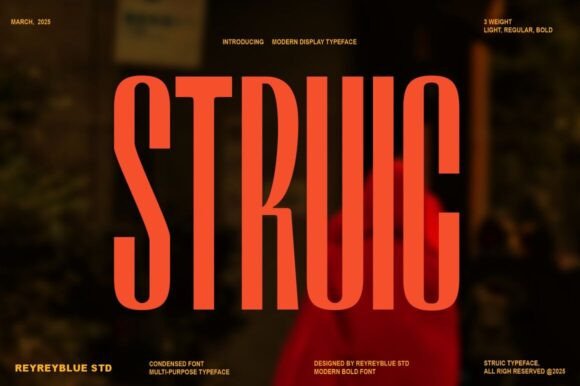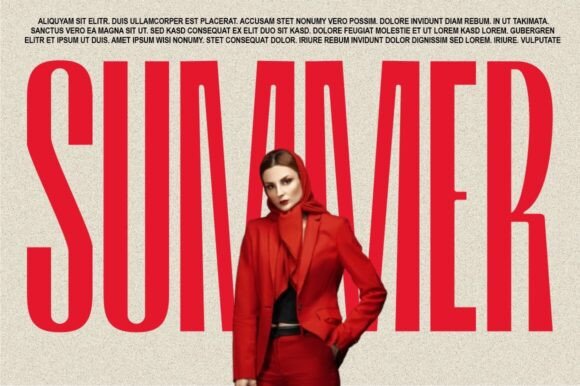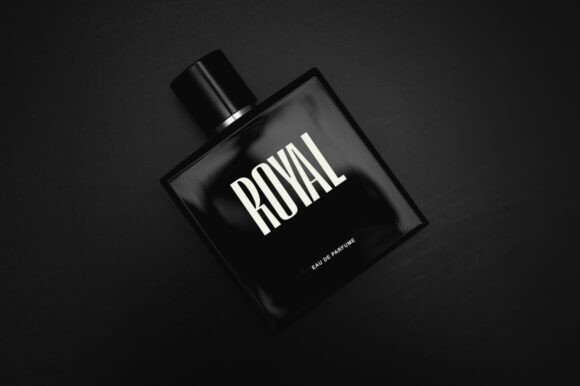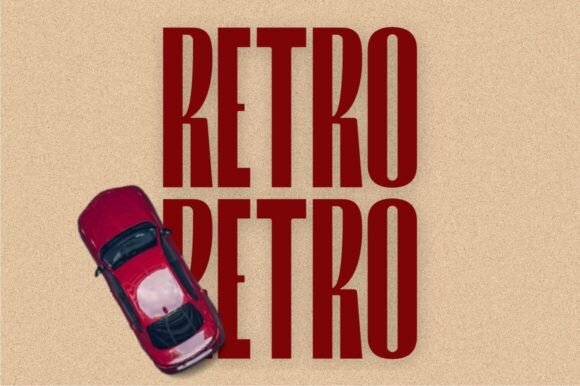
STRUIC Font: Bold Condensed Typeface for Modern Branding & Headlines
About the Struic Font
Step up your design game with Struic Font, a font that exudes confidence and style. 🔥 Looking for a high-impact, modern font that demands attention? Introducing STRUIC – a sleek, condensed display typeface designed for bold branding, striking headlines, and stylish editorial layouts. Blending modern minimalism with a refined touch, STRUIC is the perfect choice for high-end branding, premium design, and contemporary aesthetics.
Why STRUIC is the Perfect Typeface for Your Project:
✔ Three Versatile Weights – Light, Regular, and Bold to fit any design need.
✔ Condensed & Space-Saving – Maximize impact without sacrificing style.
✔ Modern Minimalism with a Refined Touch – Ideal for tech, fashion, and high-end branding.
✔ High Readability – Sharp, clean letterforms optimized for print and digital use.
✔ Multi-Purpose Usage – Perfect for logos, posters, magazine covers, social media graphics, packaging, and more.
Who Should Use STRUIC?
Graphic designers looking for a sleek, bold font for impactful visuals.
Brands & agencies needing a typeface that embodies modern elegance for high-end branding.
Creatives & content creators wanting to elevate their designs with a refined, minimalist aesthetic.
🚀 Boost Your Branding with STRUIC! Whether you need a powerful headline font, an elegant typographic logo, or a bold statement for your project, STRUIC has you covered.